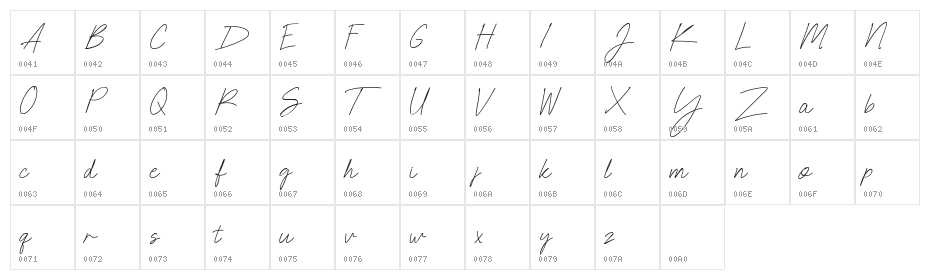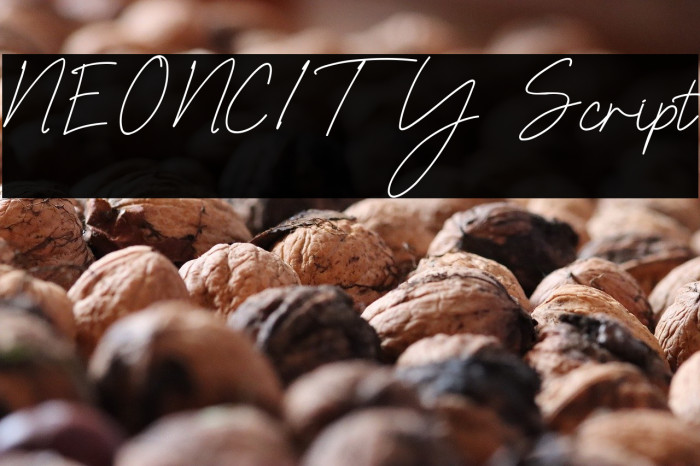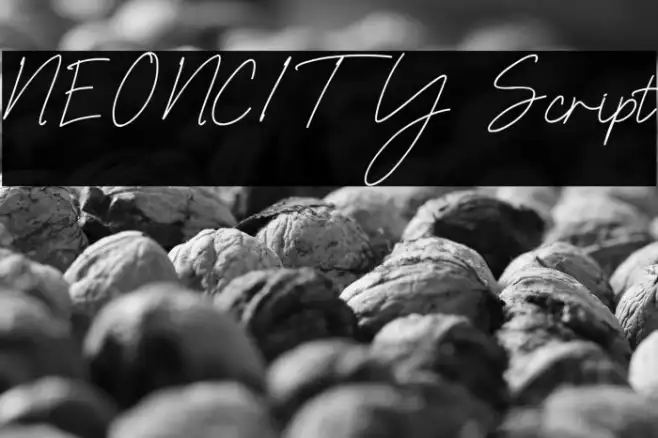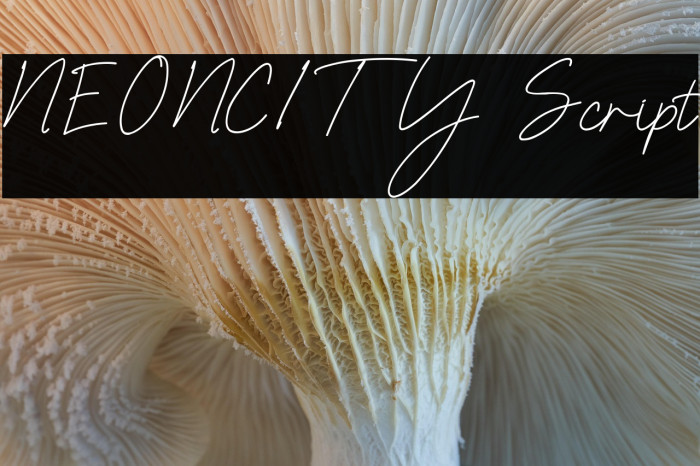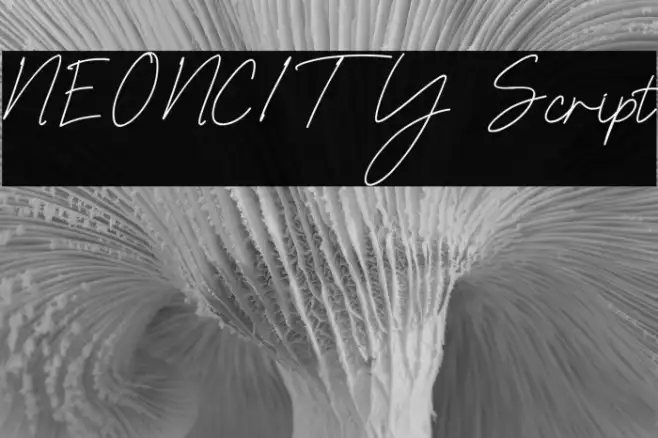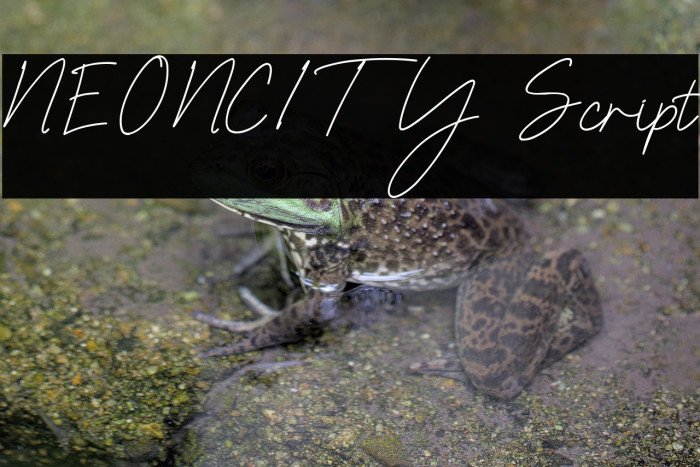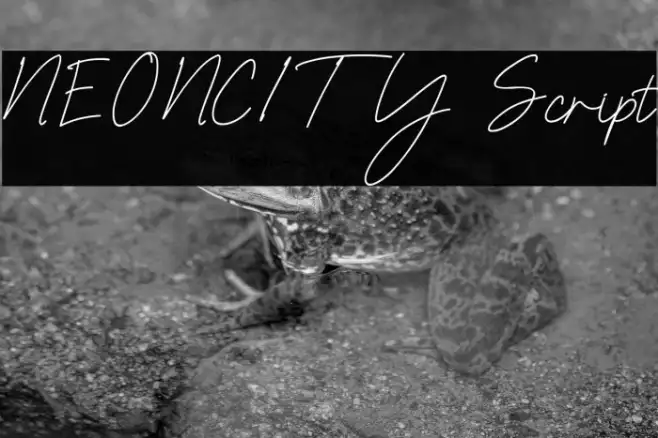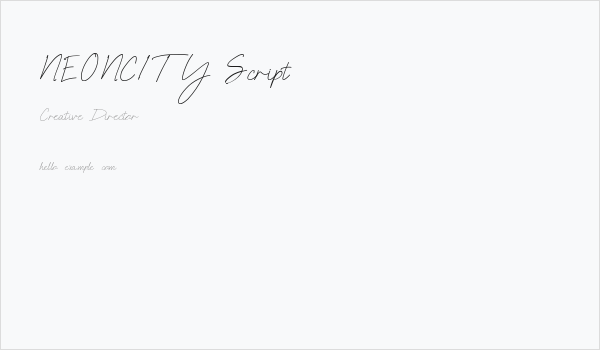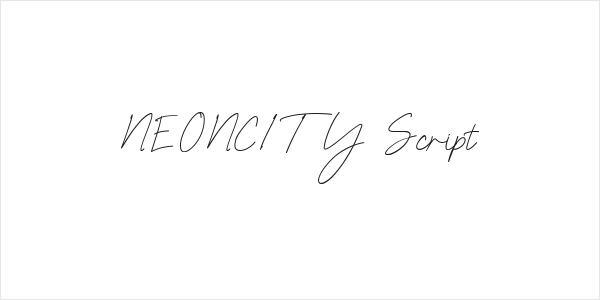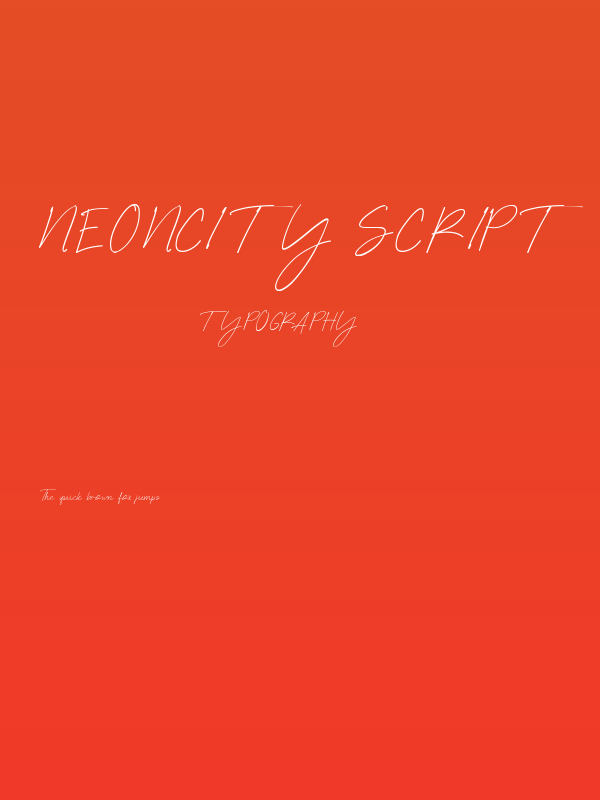
NEONCITY Script Font
NEONCITY Script Description
This font features a fluid, cursive style that mimics natural handwriting with a modern twist. The letters are elegantly elongated with smooth, flowing lines, giving it a sophisticated yet approachable feel. The uppercase letters are distinct with a slight slant, while the lowercase letters maintain a consistent baseline, enhancing readability. The strokes are thin and delicate, adding a touch of elegance and refinement. This script font is perfect for conveying a sense of personal touch and creativity, making it ideal for artistic and expressive projects.
| Proposed Projects | Ideal for wedding invitations, personal branding, greeting cards, and artistic projects that require a personal and elegant touch. |